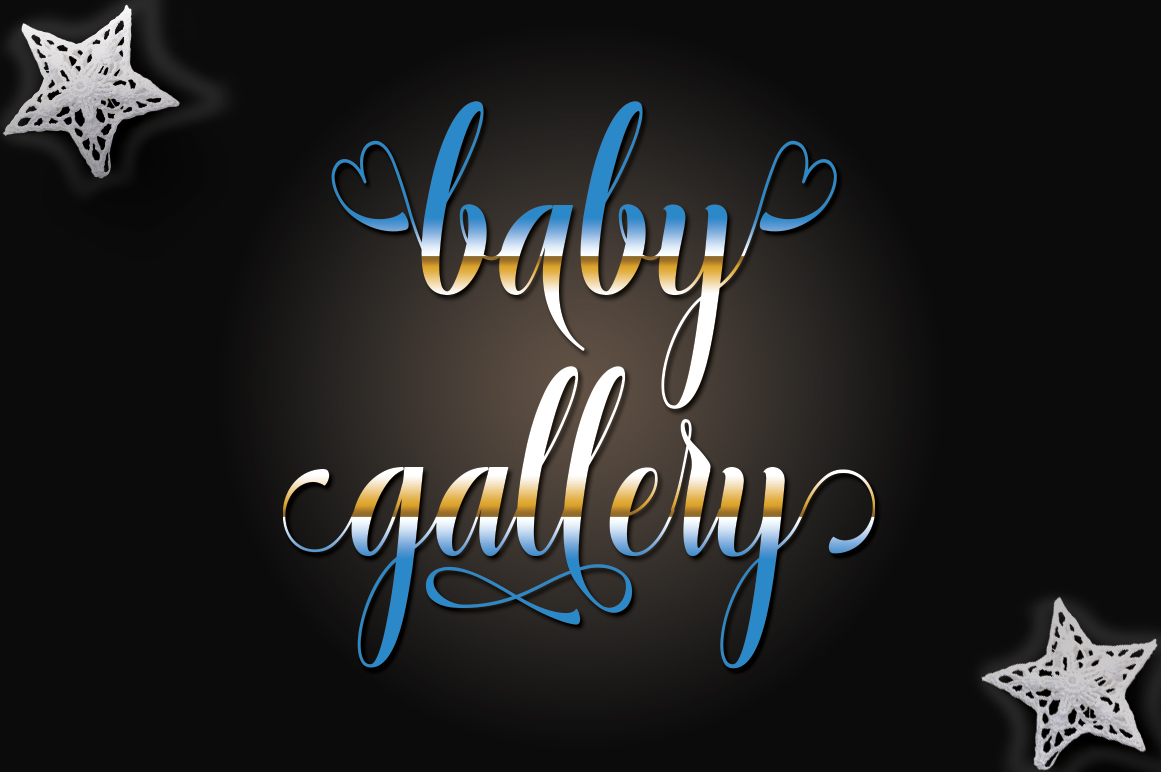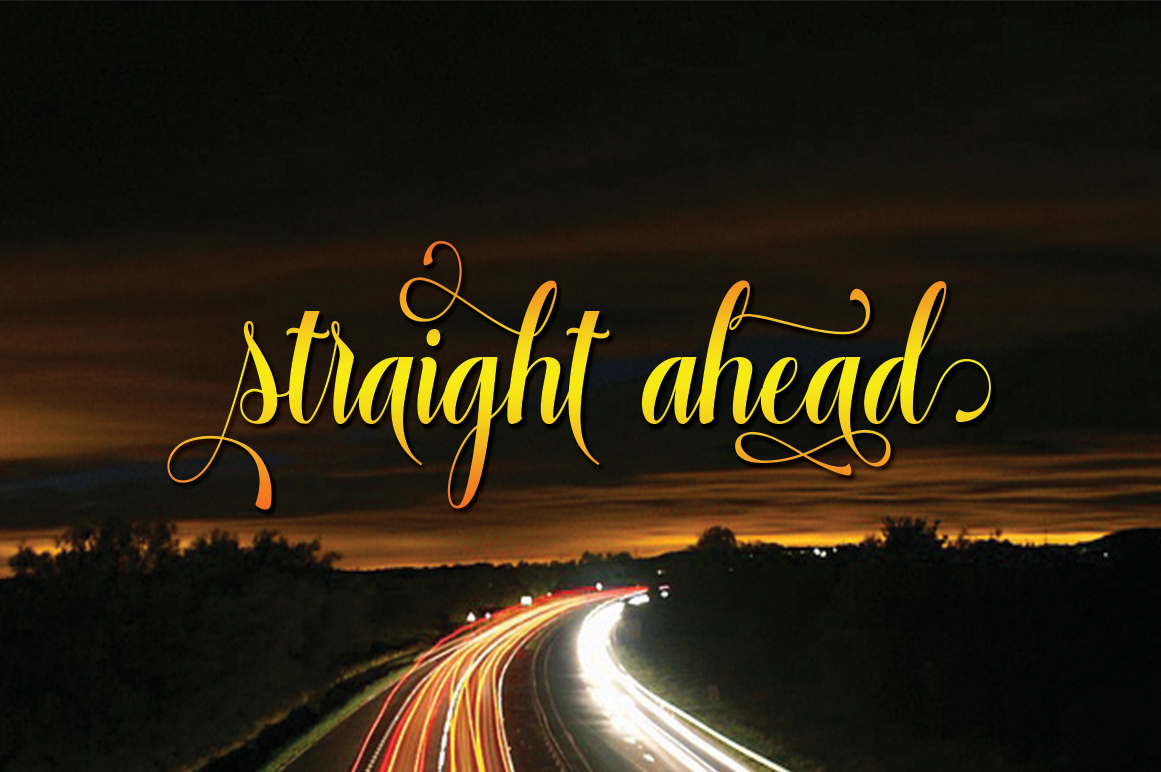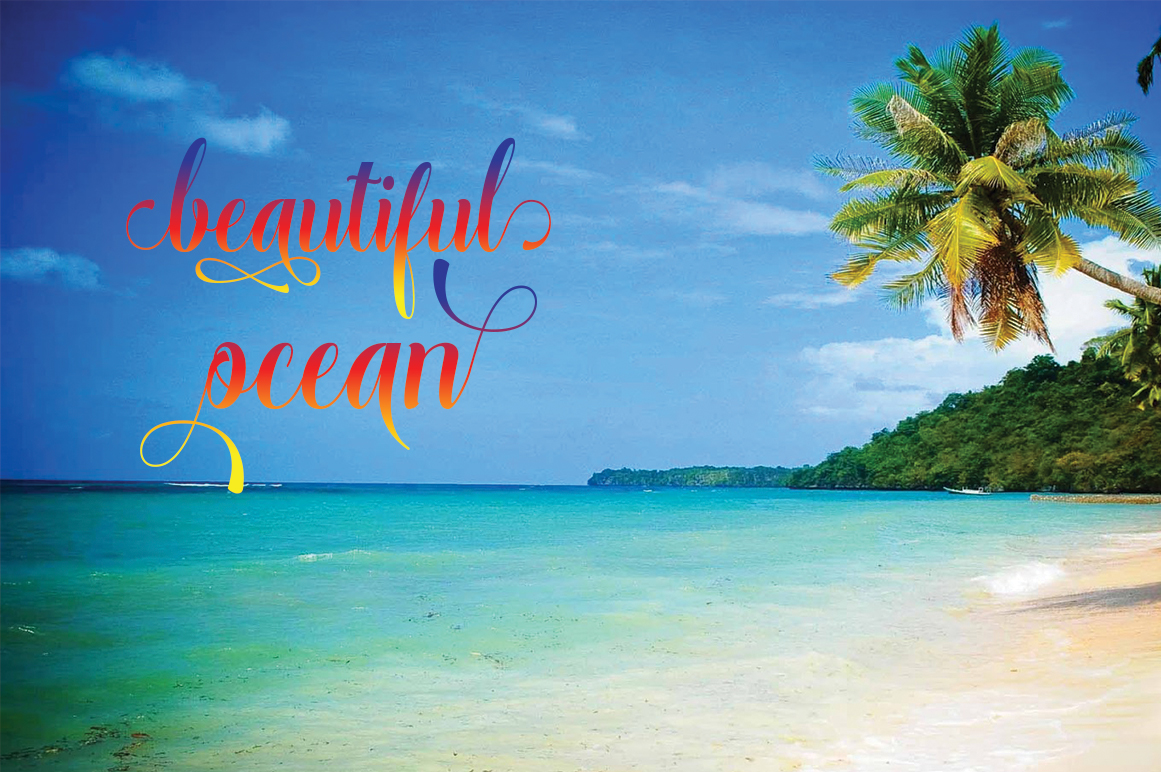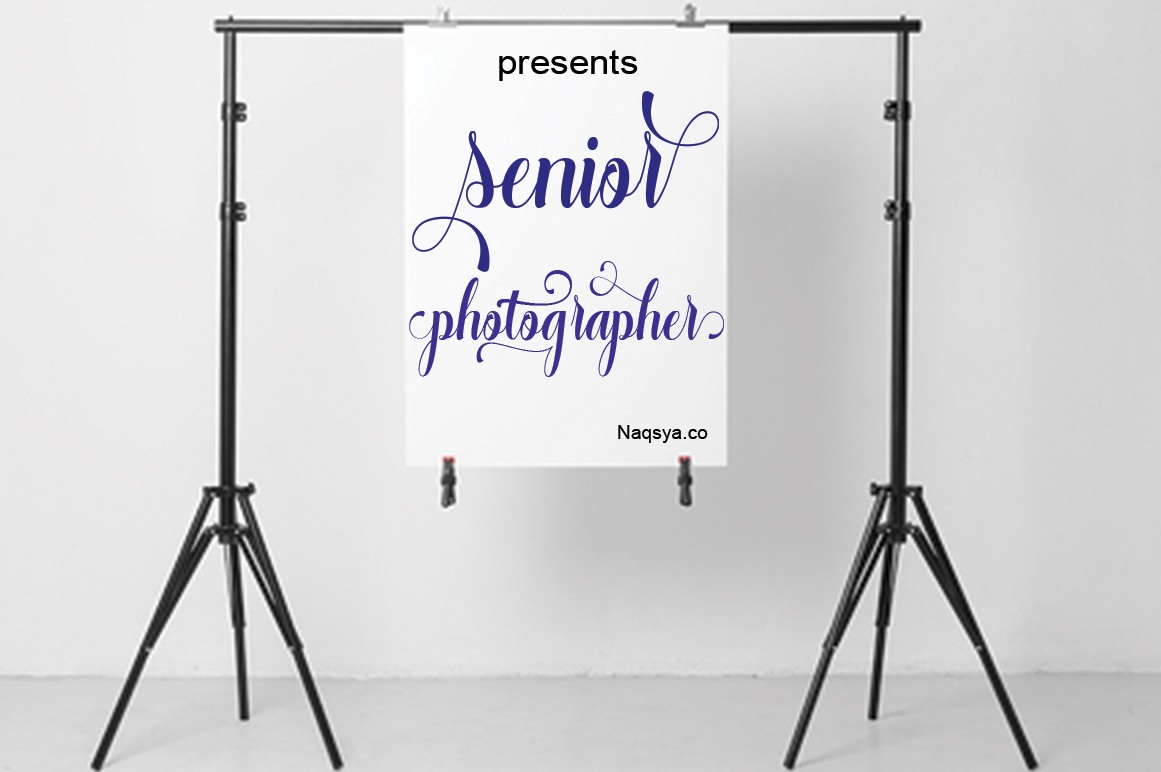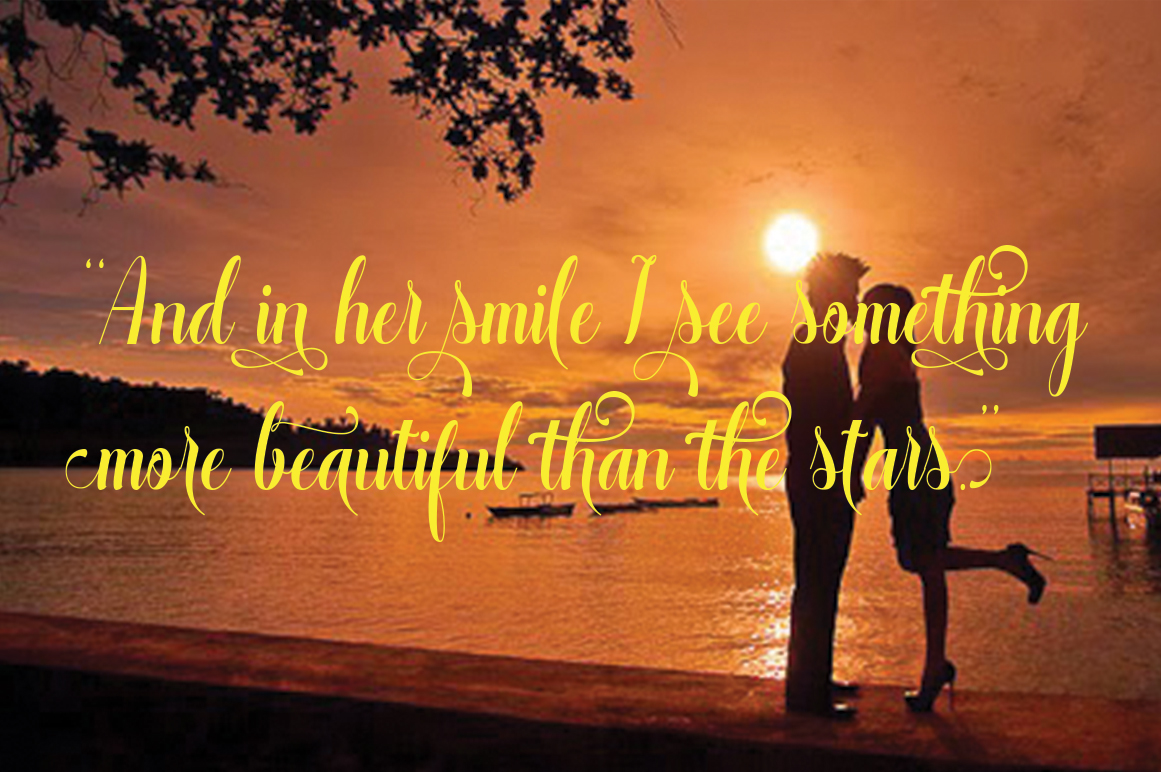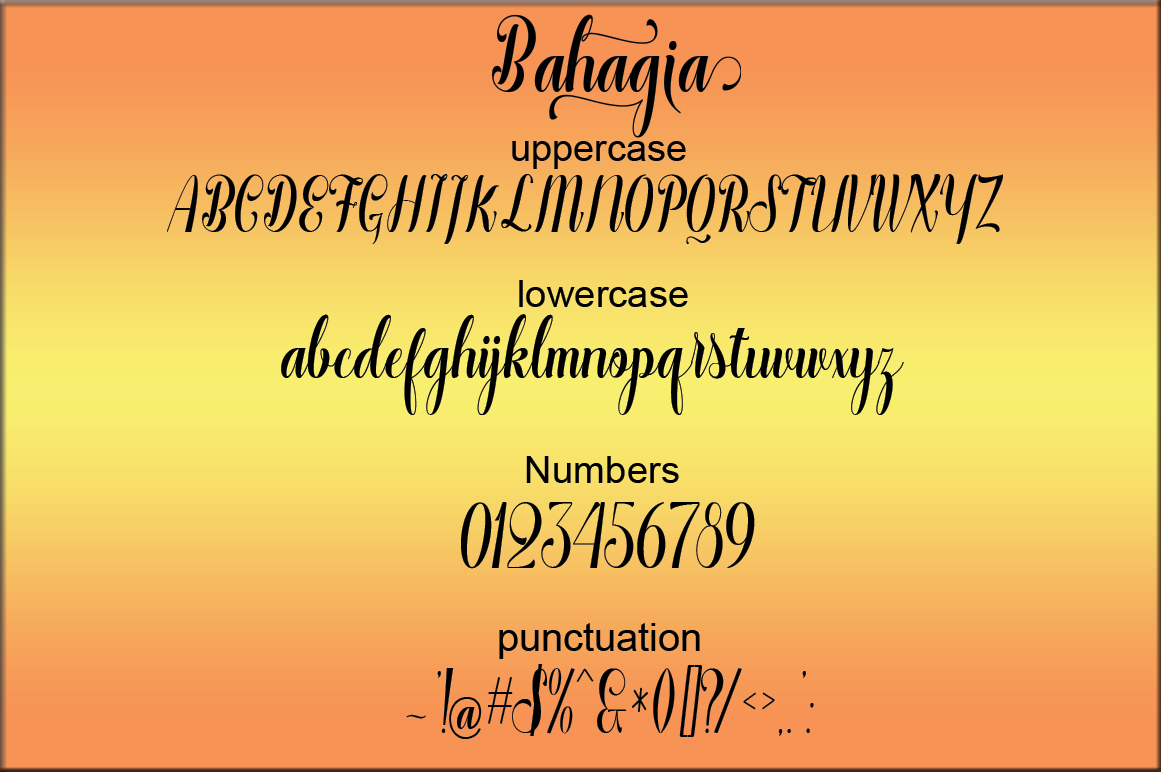
Introduction to Bahagia! Font
Bahagia was inspired by the naturalness of handwriting, and is a thoughtful approach to modern calligraphy.
Key Features of Bahagia! Font
Why Choose Bahagia! Font?